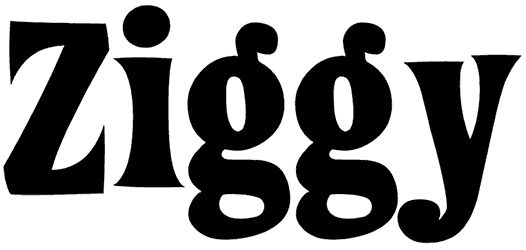
Ziggy Font
Step by step, shape the face of typography and give off a more playful and modern vibe through the handwritten touch of this serif font. Ziggy stands perfectly for making fun designs in movie tilting, posters, storybooks, Instagram posts, or blogs that will call all the attention.
Certainly, the lack of numbers never causes trouble in inventing, so get your act together and see how it goes agreeably. Pick other lettering fonts from our library to operate alongside this one.